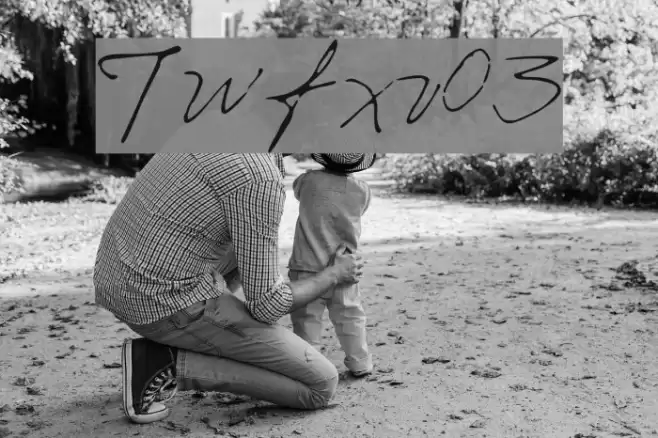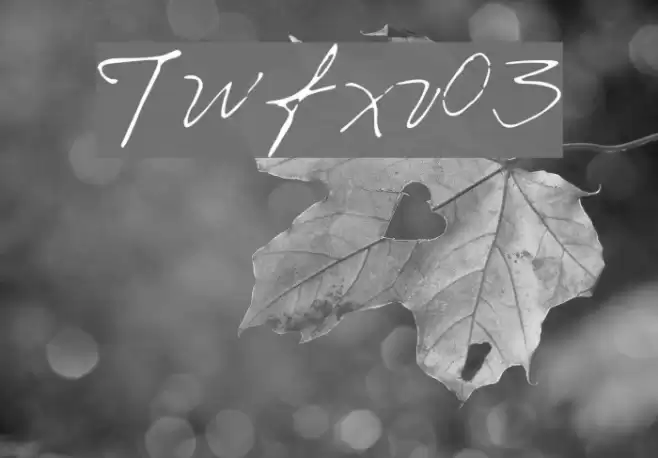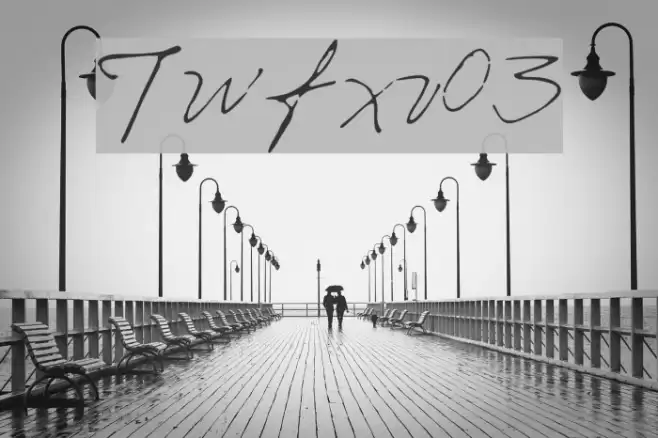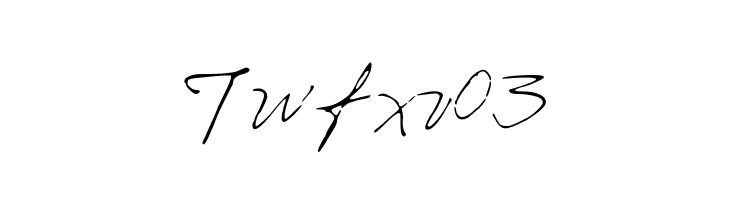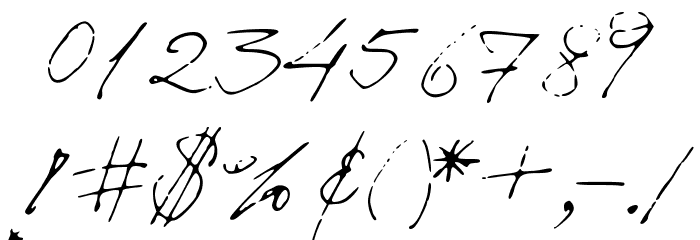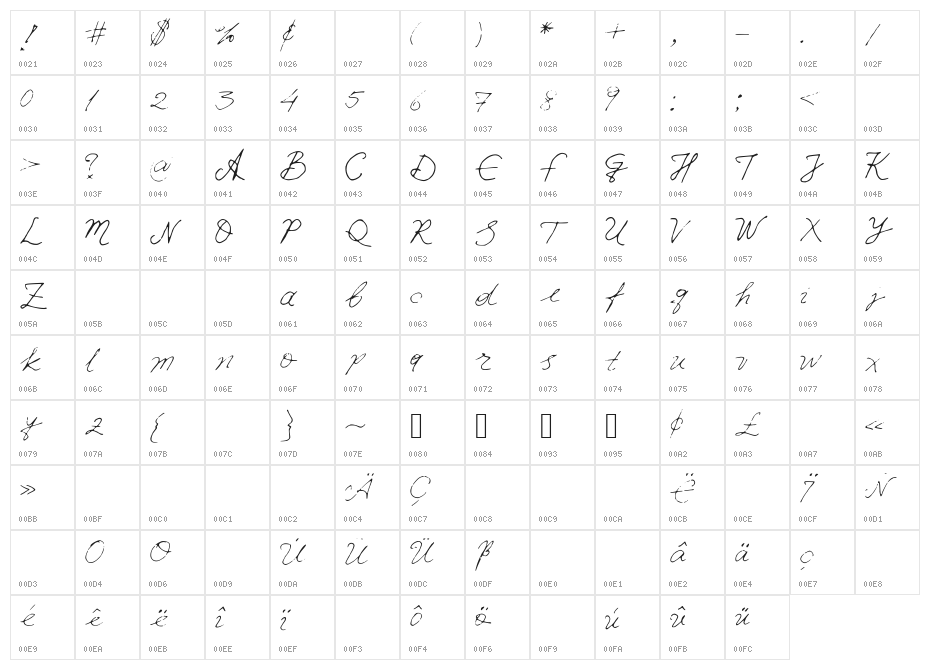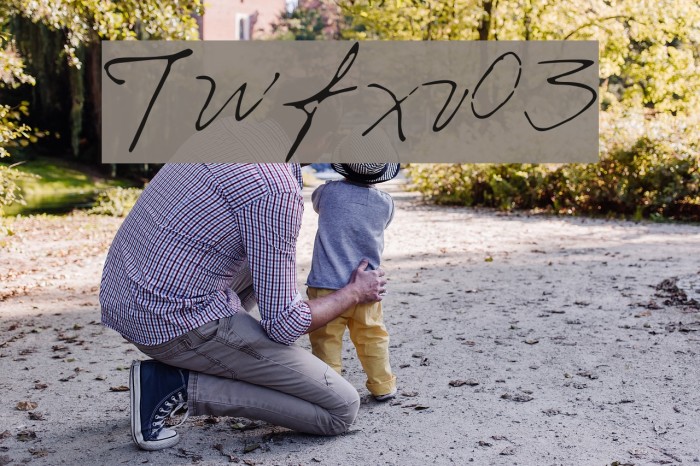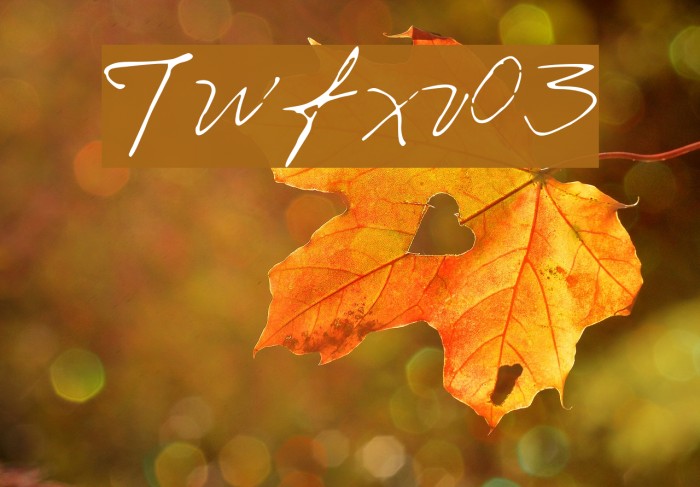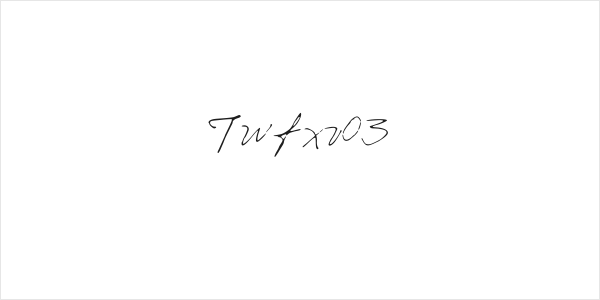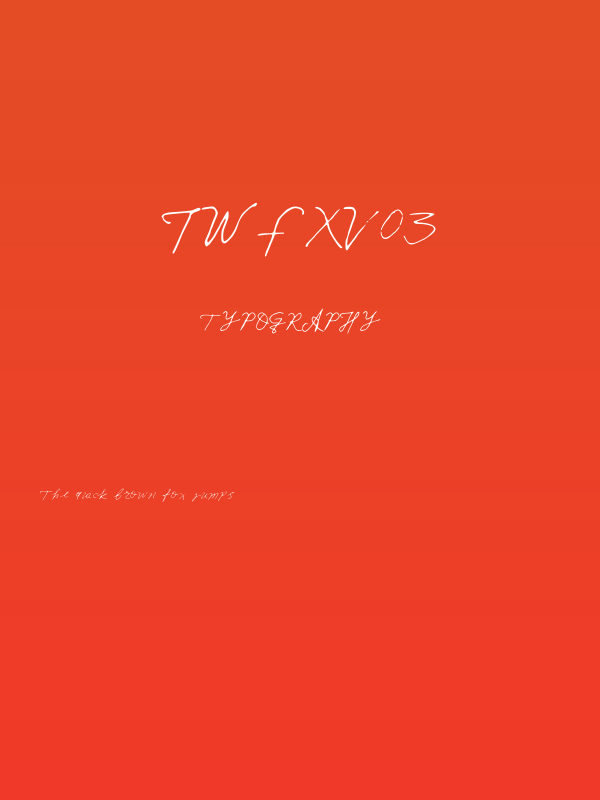
Iwfxv03 Font
Iwfxv03 Description
This font exudes a classic, handwritten style with elegant, flowing strokes that mimic the fluidity of cursive handwriting. Each character is crafted with a distinct flair, featuring loops and swirls that add a touch of sophistication. The uppercase letters are bold and prominent, while the lowercase letters maintain a delicate balance, offering a harmonious blend of formality and grace. The numerals are clear and consistent, complementing the overall aesthetic. Special characters are uniquely styled, maintaining the font's cohesive look. This font is perfect for projects that require a personal, artistic touch.
A classic, elegant handwritten font with flowing cursive strokes from Uncategorized fonts.
- Proposed Projects: Ideal for wedding invitations, greeting cards, personal branding, and artistic projects.
- Overall Style: Classic
- Use Case: Logos, Invitations, Artistic projects